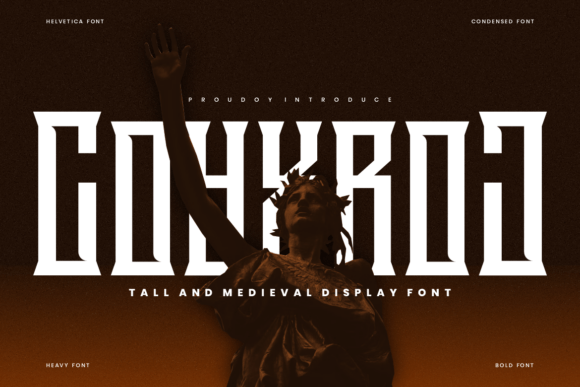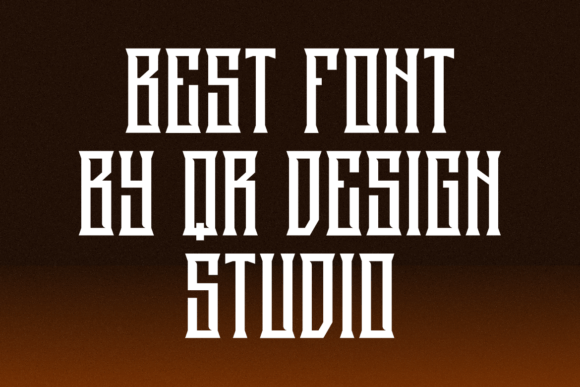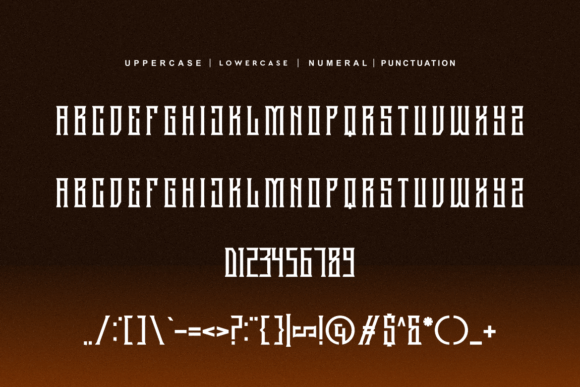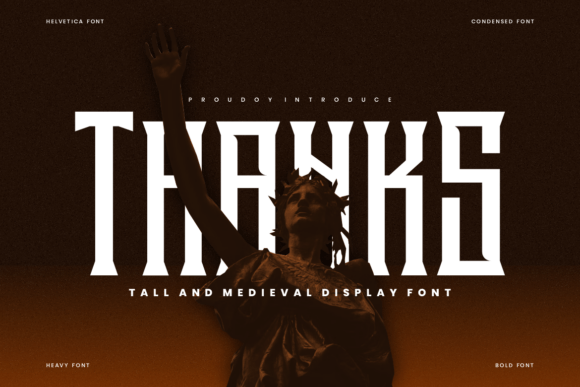
Introduction to Coyxroj Font
Do you remember the moment when your creative spark ignites, and you’re eager to bring your ideas to life? For designers, this feeling is a constant companion, and the right font can be the difference between a good project and a great one. That’s where the Coyxroj Font comes in – a game-changing serif font designed to elevate your creative projects to new heights.
With its masterful design, the Coyxroj Font is the perfect addition to any design resource collection. Its unique characteristics make it an ideal choice for designers seeking a high-quality font that can stand out from the crowd. Whether you’re working on a project with a transparent background or need a font that’s easy to read, the Coyxroj Font is an excellent option.
Key Features of Coyxroj Font
- High-quality design: The Coyxroj Font is a well-crafted, high-quality design resource ideal for creative projects.
- Transparent background: This font features a transparent background, allowing for seamless integration with any design.
- Unique characteristics: The Coyxroj Font features a unique, modern design with a range of stylistic alternates and swashes, making it perfect for creative projects.
- Design versatility: The font is suitable for a variety of design applications, including logos, branding, packaging, and digital design.
Honest Review: Coyxroj Font
I recently stumbled upon the Coyxroj Font, and I must say it’s a great addition to any designer’s toolbox. As a designer, I’m always on the lookout for high-quality fonts that can elevate my creative projects.
- ✨ The font’s unique, futuristic aesthetic makes it perfect for tech-related or sci-fi inspired designs.
- ✨ The transparent background allows for seamless integration into any design, giving it a clean and modern look.
- ⚠️ The font may not be suitable for projects that require a more traditional or classic look.
- ⚠️ Some characters may not be as detailed or polished as others, but this is a minor issue.
Overall, I’m impressed with the Coyxroj Font. Its high quality, transparent background, and free download make it a valuable design resource. While it may not be perfect for every project, it’s definitely worth considering for your next creative endeavor.
Getting the Most Out of Coyxroj Font
For the best results, use Coyxroj Font on a transparent background to create a high-quality design. You can also use it in conjunction with other design elements, such as graphics and images, to add depth and interest to your project.
Coyxroj Font is a versatile design resource that can be used in a variety of creative projects, including logos, posters, and business cards. It’s also a great choice for social media graphics, presentations, and other visual content.